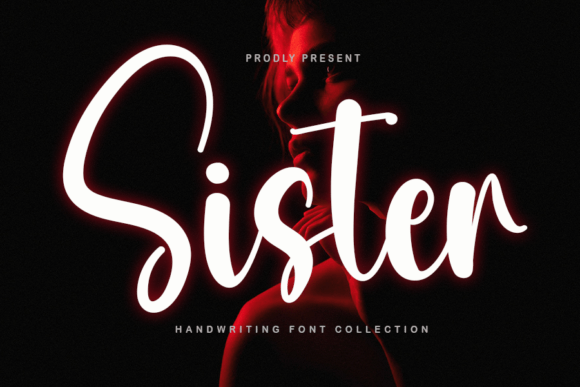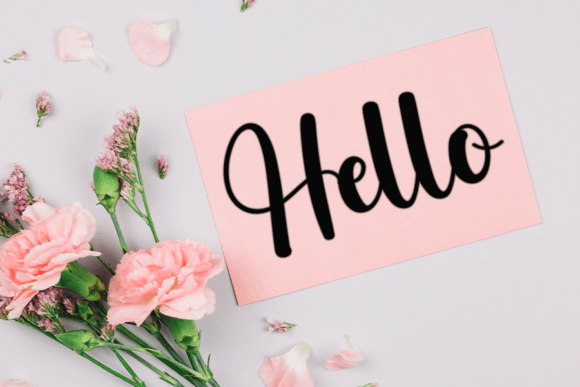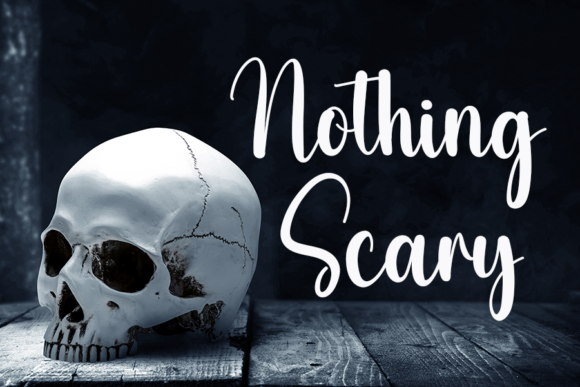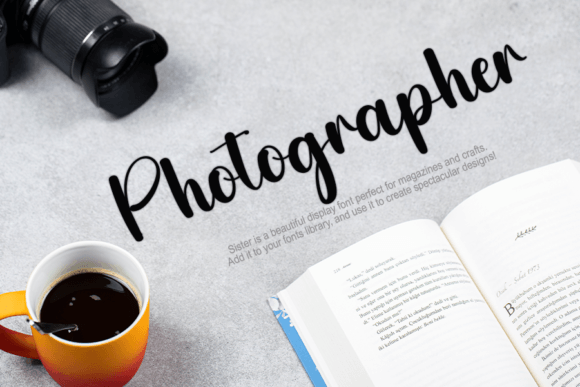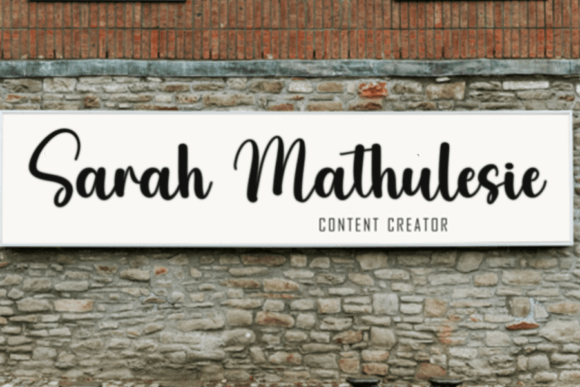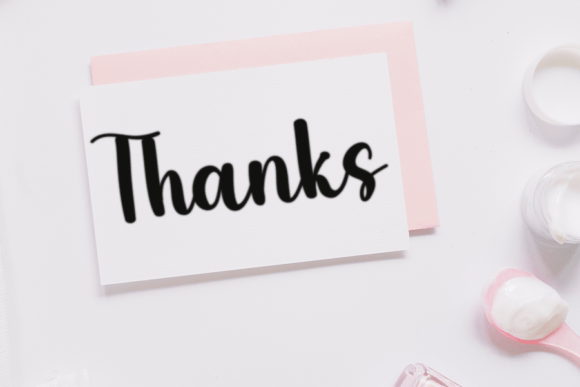
Sister Font
What Is Sister Font?
Sister Font is a neat and beautiful handwritten script designed to bring elegance and timeless charm to your creative projects. Each character is thoughtfully crafted with smooth lines and refined curves that feel both classic and modern. Whether you want to create something sophisticated or simply heartfelt, Sister helps you communicate your ideas with grace.
Its balanced, clean style makes it an essential addition to any designer’s toolkit.
Sister Font shines across a wide range of applications. For example, it’s an excellent choice for wedding invitations, save-the-date cards, and event stationery. The elegant strokes set a romantic and refined tone perfect for any celebration.
Logos and branding also benefit from Sister’s distinctive style. From boutique businesses and artisan brands to creative agencies, this font helps you build a professional and memorable identity.
Greeting cards, thank-you notes, and personal messages feel more special with Sister’s handwritten touch. It adds warmth and authenticity that makes your words stand out.
Sister is perfect for social media graphics, blog headers, and email campaigns. The neat letterforms and graceful flow draw attention and make your content feel polished and inviting.
Even packaging, product labels, and merchandise gain a premium look when you use Sister.
Why Should You Choose Sister Font?
One of Sister’s greatest strengths is its readability. Despite its handwritten elegance, each letter remains crisp and legible at any size. Whether you’re designing small labels or large headlines, your text will always look clean and professional.
The font pairs beautifully with minimalist serif or sans-serif typefaces, allowing you to create balanced layouts with a modern edge.
Designers love that Sister looks refined out of the box, saving time and delivering consistently beautiful results.
Sister Font brings sophistication, warmth, and authenticity to any project. Its smooth curves and clean lines create an emotional connection that helps your designs feel personal and engaging.
Even simple layouts gain elegance and style when you use Sister. Whether you’re designing a wedding suite or a brand identity, this font elevates your visuals effortlessly.
Choosing a high-quality handwritten script shows your commitment to detail and exceptional design. Clients and customers will notice this care, helping you build trust and stand out in a crowded market.
Sister Font is more than just a beautiful typeface—it’s a versatile design asset that helps you share ideas with clarity and elegance. From invitations and branding to packaging and social media, this font adapts seamlessly to any project and leaves a lasting impression.